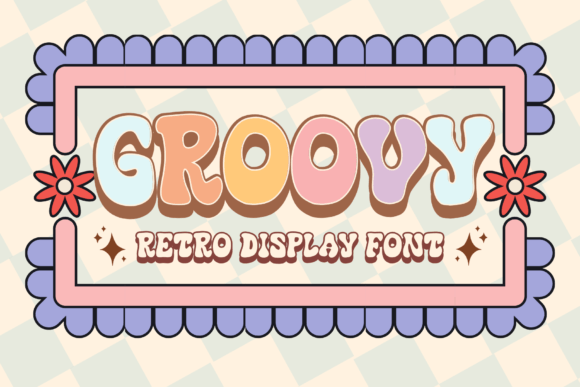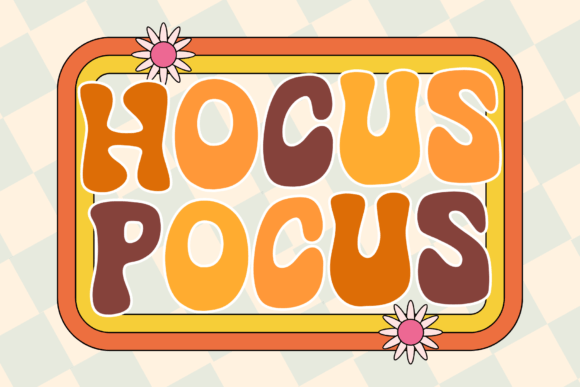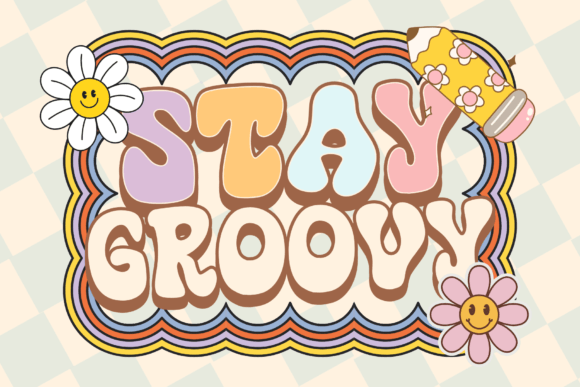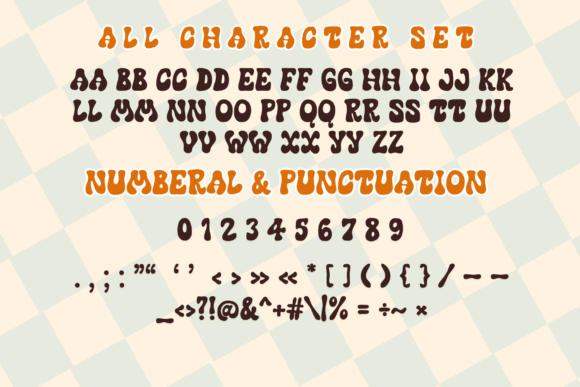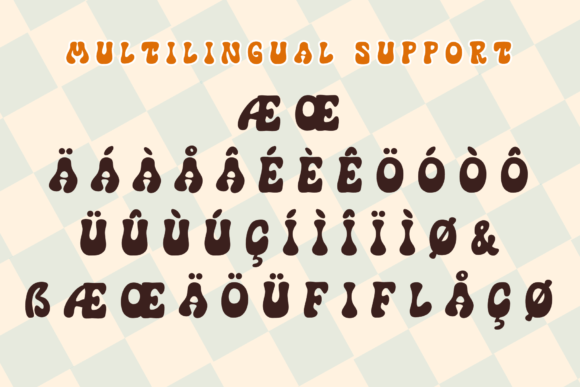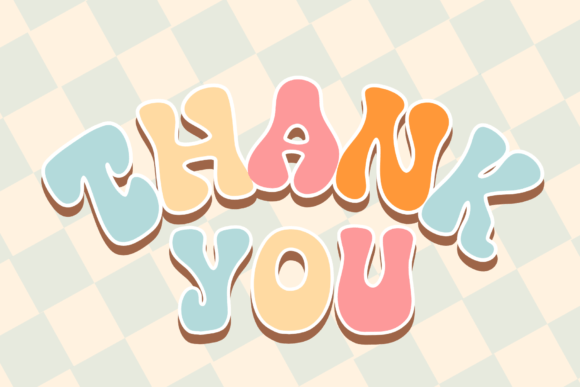
Get Ready to Groove: Unlock the Magic of the Groovy Font
You know that feeling when you stumble upon the perfect font to bring your creative vision to life? It’s like finding a hidden treasure that instantly elevates your design from meh to mesmerizing. For designers, the search for that elusive font can be a long and winding road. But what if I told you that I’ve found the holy grail of retro-inspired fonts?
Enter the Groovy Font, a stylish retro groovy font that embodies the carefree spirit of the 1960s and 1970s. With its playful and authentic vibe, this font is perfect for designers who want to add a dash of personality to their projects. Whether you’re working on a blog post, logo, or invitation, the Groovy Font is sure to bring a smile to your clients’ faces and a touch of whimsy to your designs.
Groovy Font Key Features
- Font Family: Groovy Font is a sans-serif font family, designed for modern and playful typography.
- Font Size and Weight: Offers a range of font sizes and weights, from 100 to 900, allowing for flexible and customizable typography.
- Unique Characteristic: Features a distinctive, rounded edge design that adds a touch of whimsy and playfulness to text, making it perfect for creative and artistic projects.
- Language Support: Supports a wide range of languages, including Latin, Cyrillic, and Greek scripts, making it a versatile font for global design projects.
Designer Review: Groovy Font
Overall, I’m impressed with the playful vibe that Groovy Font brings to any design project. ✨ The font’s unique combination of retro and modern elements makes it a great choice for creating eye-catching visuals. Here are some aspects that I think work well:
- The font’s flexibility in size and style – it looks great in both large headings and small body text.
- The font’s bold and colorful aesthetic, which is perfect for creating a fun and energetic atmosphere.
- The font’s versatility in various design contexts, from digital products to print materials.
- ⚠️ The font may not be suitable for formal or professional designs, as it can come across as too playful or childish.
- ⚠️ Some users may find the font’s bold lines and bright colors overwhelming or difficult to read in certain situations.
Overall, I think Groovy Font is a great addition to any designer’s toolkit, as long as you use it judiciously and consider the context and audience. With its unique style and versatility, it’s sure to add a touch of personality to your designs.
Tips for Getting the Most Out of Groovy Font
Here are a few tips for getting the most out of the Groovy Font:
- Use the font in bold or italic styles to add emphasis to your text.
- Combine the Groovy Font with other fonts to create a unique and eye-catching design.
- Experiment with different font sizes and colors to find the perfect combination for your project.
The Groovy Font is perfect for:
- Use Groovy Font to display the name of the destination in bold, colorful letters.
- Combine Groovy Font with vintage-inspired graphics, such as peace signs, flowers, and psychedelic patterns.
- Tip: Use a combination of uppercase and lowercase letters to add visual interest and create a sense of movement.
- Use Groovy Font to display the invitation’s main message in a bold, eye-catching font.
- Combine Groovy Font with bright, colorful backgrounds and patterns, such as geometric shapes and paisley designs.
- Tip: Use animation effects, such as spinning or fading, to add an extra layer of visual interest to your design.
- Use Groovy Font to display the quote in bold, colorful letters, with varying font sizes and styles.
- Combine Groovy Font with urban-inspired graphics, such as stencils, tags, and street art patterns.
Project 1: Retro-Themed Travel Poster
Create a vibrant travel poster that captures the essence of the 1960s and 70s. The Groovy Font will add a funky touch to your design.
Project 2: Digital Invitation with a Groovy Twist
Create a digital invitation that’s sure to get your guests excited. The Groovy Font will add a fun, retro vibe to your design.
Project 3: Graffiti-Inspired Quote Wall
Create a striking quote wall that showcases inspirational quotes in a fun, graffiti-inspired design. The Groovy Font will add a playful touch to your project.